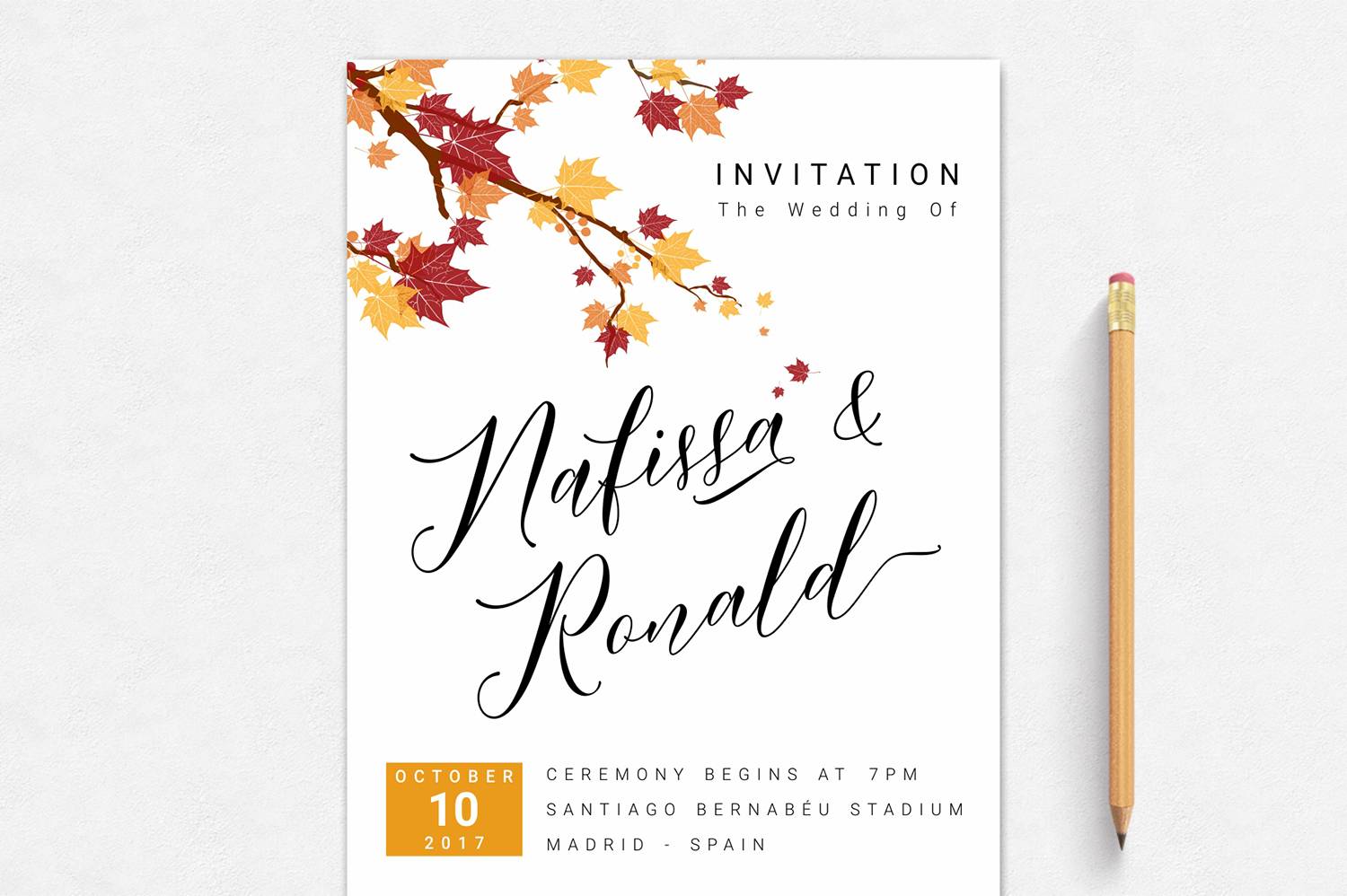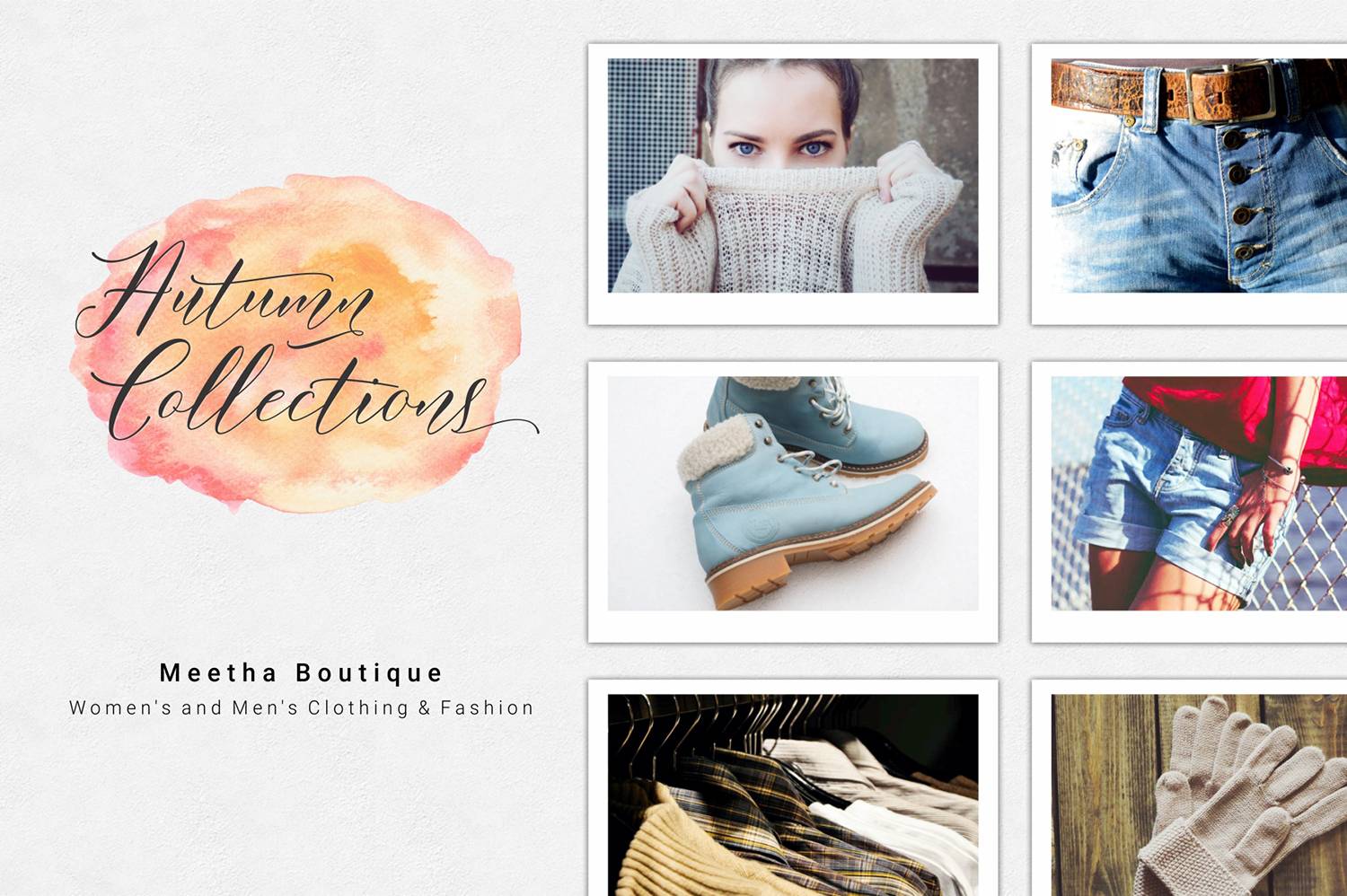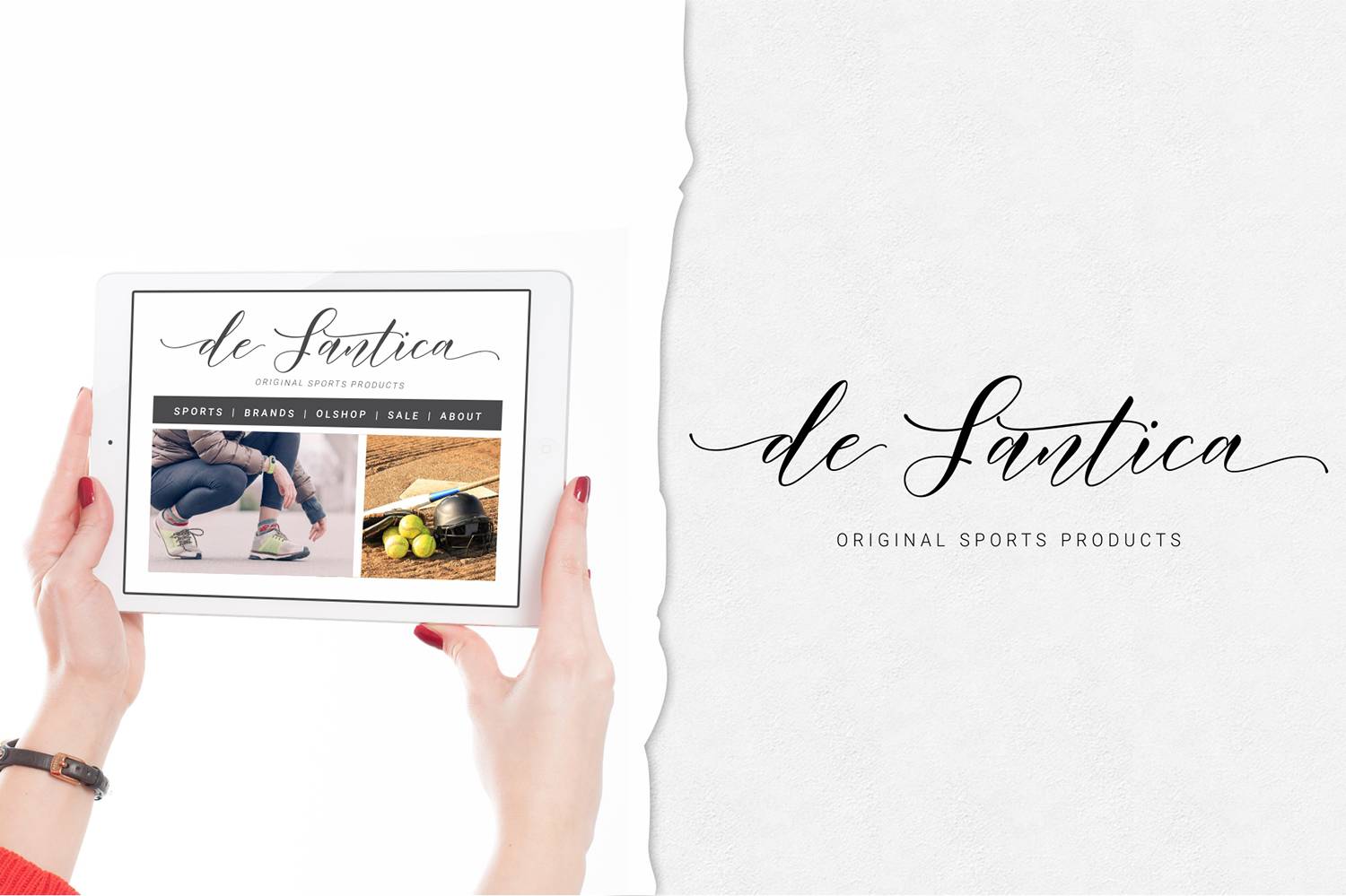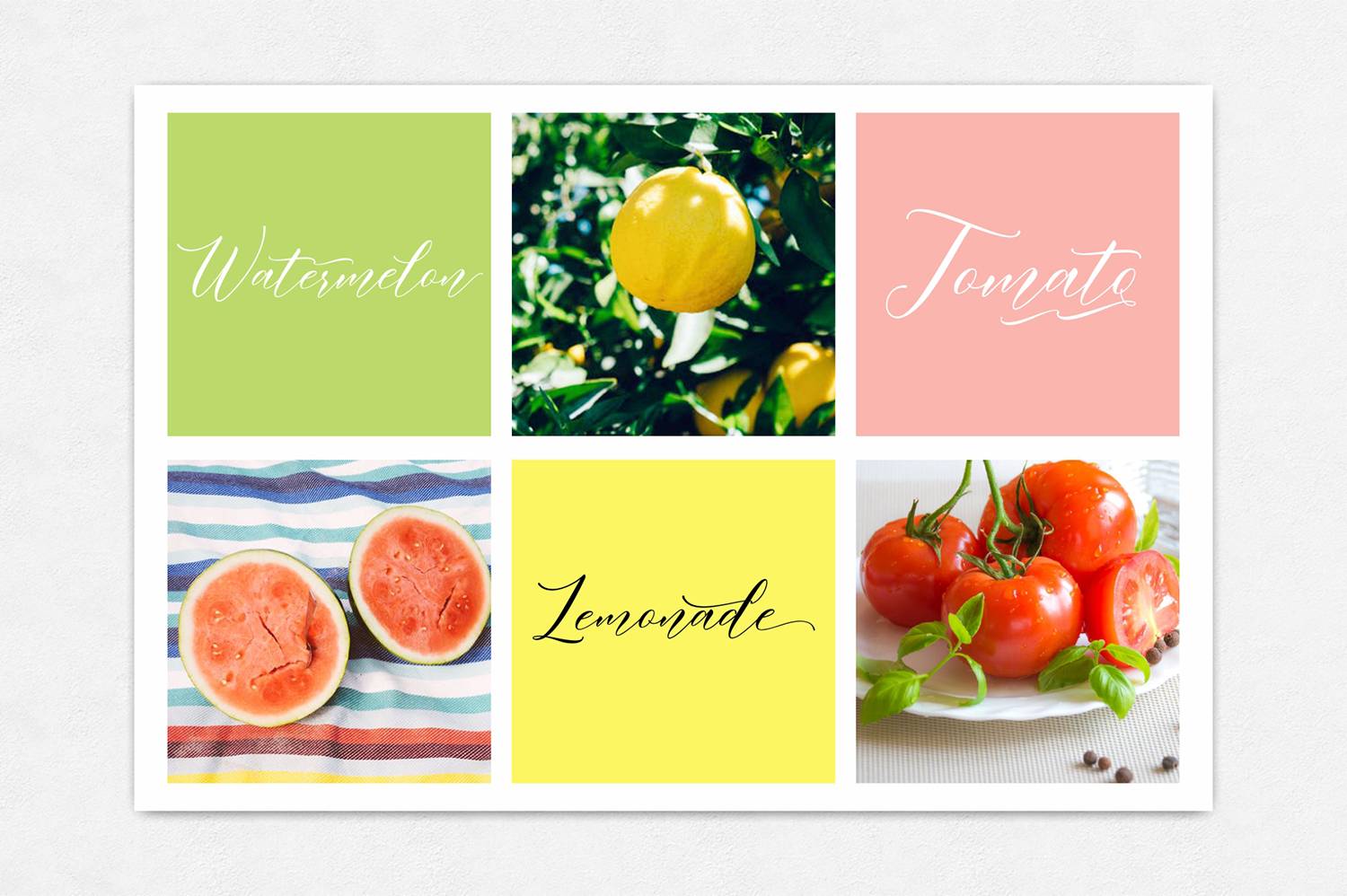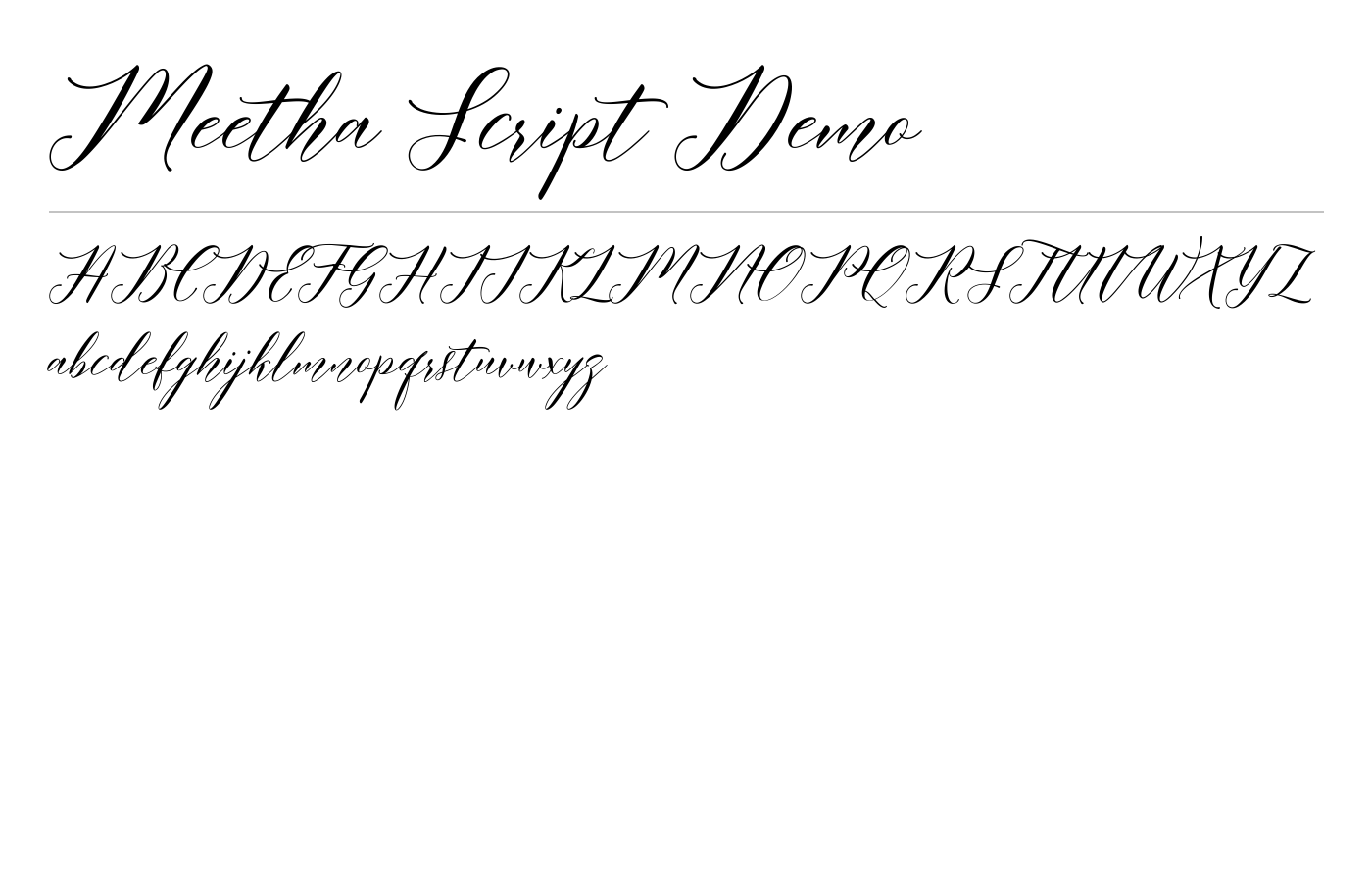
Meetha Script is an elegant and flowing handwritten script font with fine, delicate strokes and graceful letterforms that convey a sense of sophistication and charm. Its tall, slender characters with high contrast between thick and thin lines make it ideal for wedding invitations, luxury branding, and feminine design projects where a refined and personal touch is desired. This font works best in headlines, logos, and decorative text where its ornate style can truly shine.
Meetha Script Font
About Meetha Script Font
| Font family | Meetha Script Font |
| Release date | 2017-10-03 |
| Designer | Juni Fadil Putra |